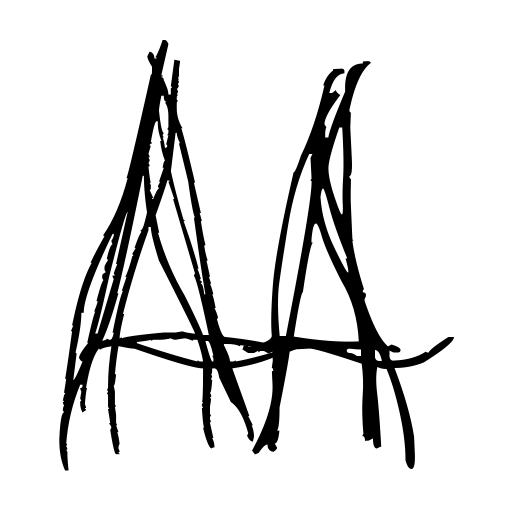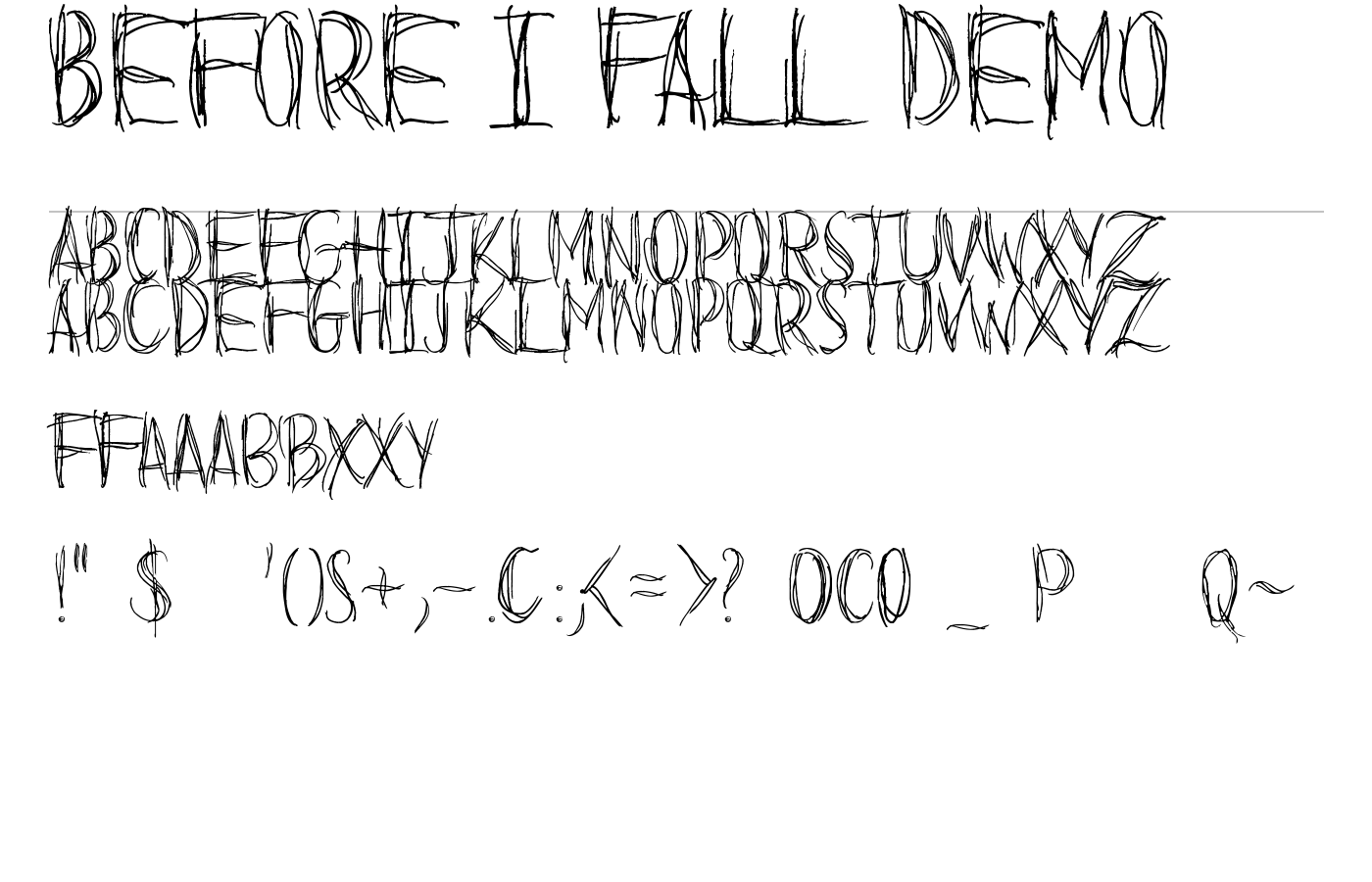
Before I Fall Demo is a distinctive handwritten-style font with a narrow, tall structure and a rough, sketchy line quality that gives it an eerie, unsettling character. Its delicate, slightly chaotic strokes and uneven letterforms create a raw, organic feel perfect for edgy, artistic, or horror-themed designs. This font works well in creative projects like posters, book covers, and headlines where an expressive and haunting mood is desired.
Before I Fall Demo Font
About Before I Fall Demo Font
| Font family | Before I Fall Demo Font |
| Designer | Le Thi Thu Huong |